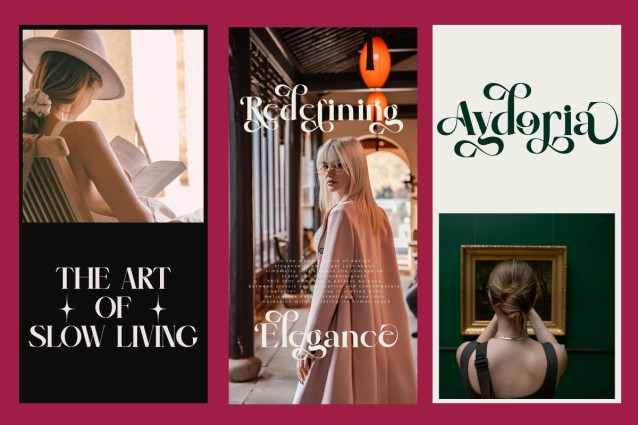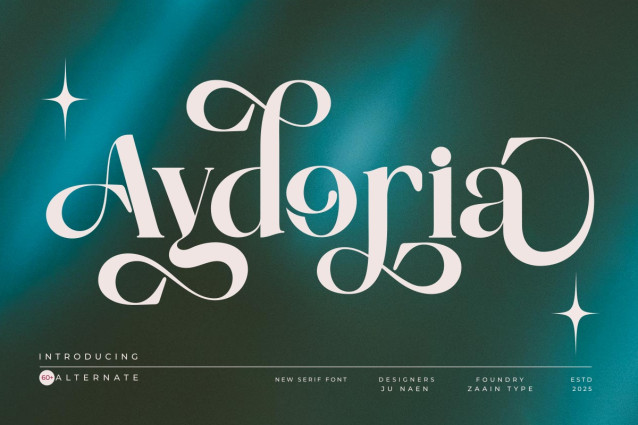
Aydoria Font is an elegant serif font that blends classic sophistication with a modern touch. Each curve is crafted with a perfect balance of subtle contrast and refined serif details, creating a look that feels both timeless and graceful.
Perfect for luxury branding, editorials, premium packaging, and fashion design, Aydoria brings a captivating character to every word. It exudes a sophisticated, refined, and timeless aura, making it an ideal choice for designers who seek to infuse their work with a high-end aesthetic